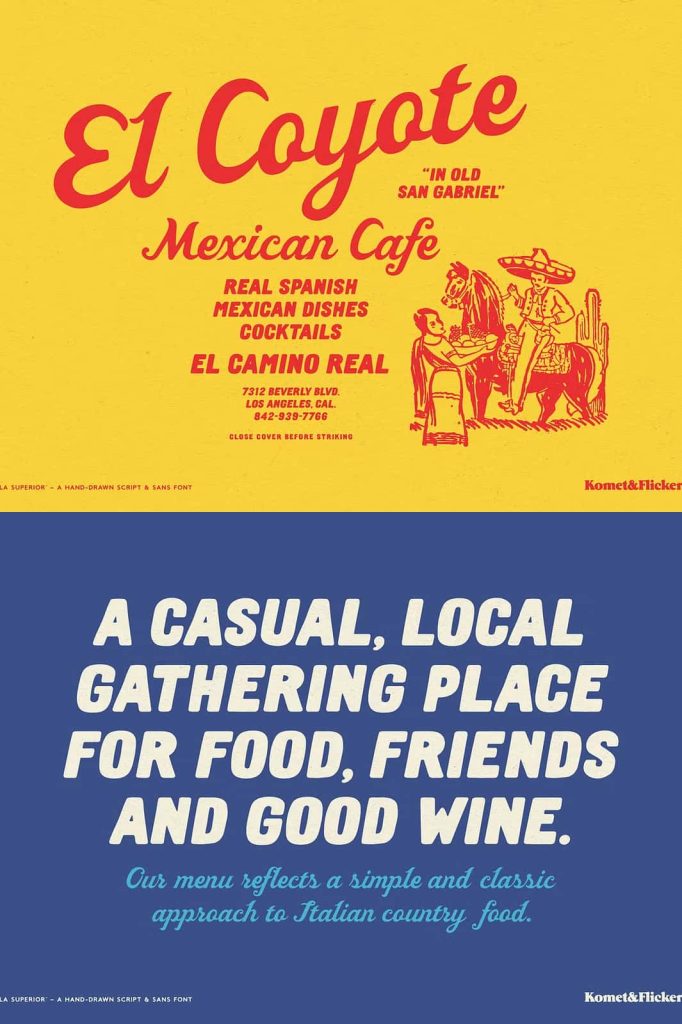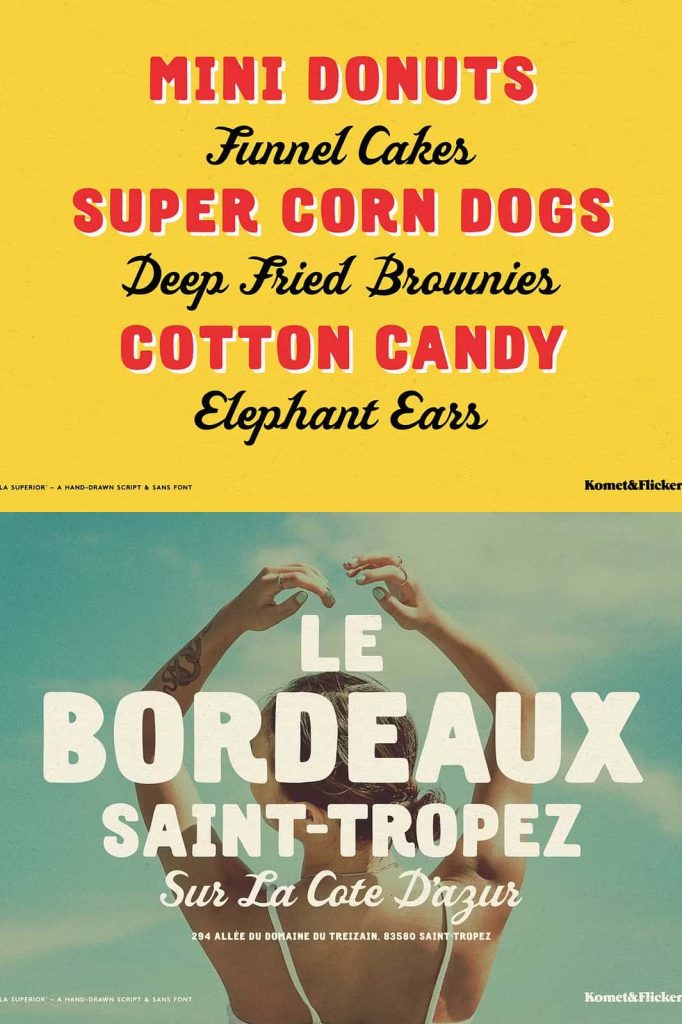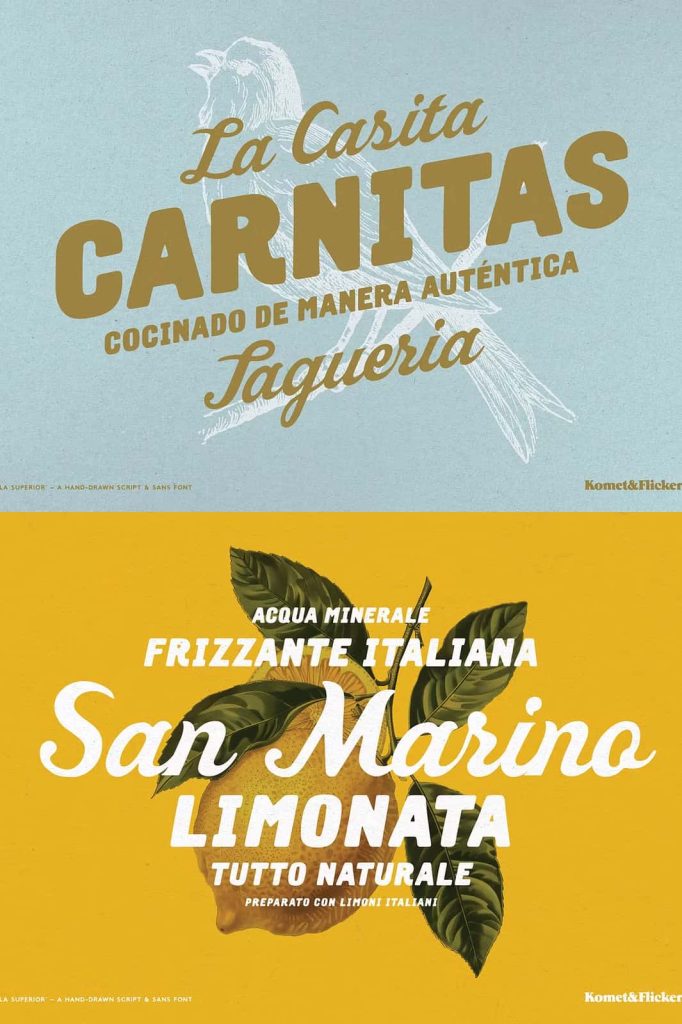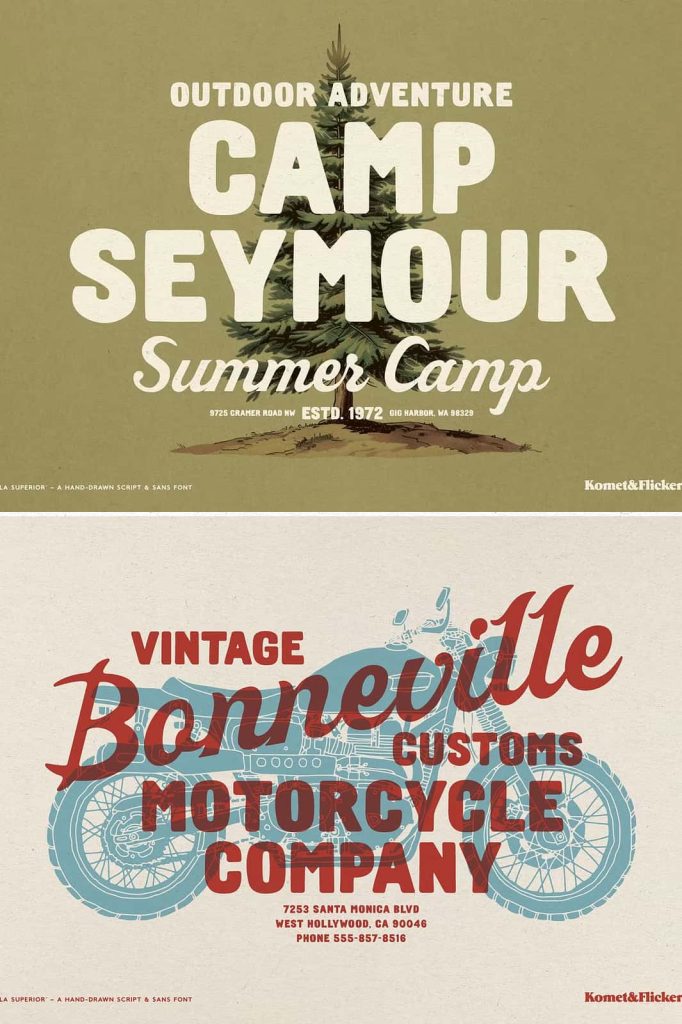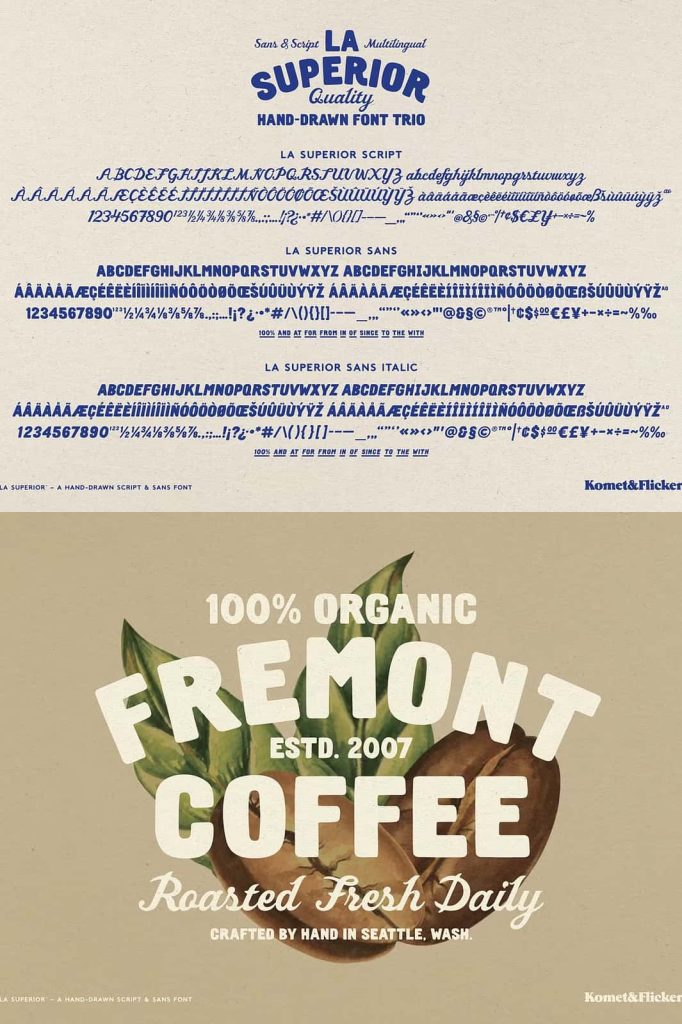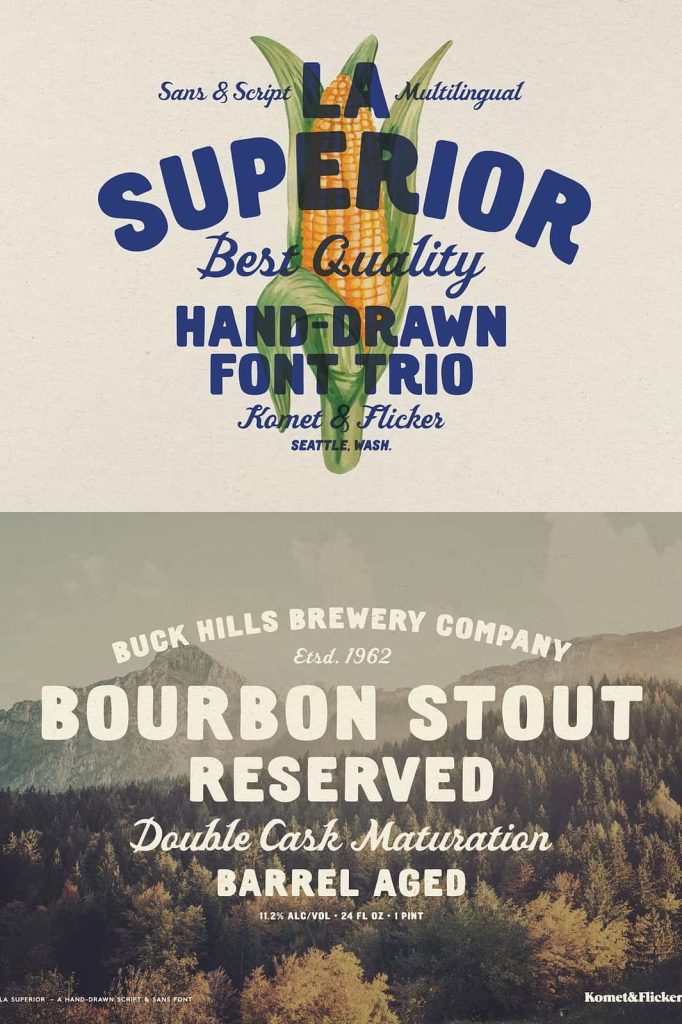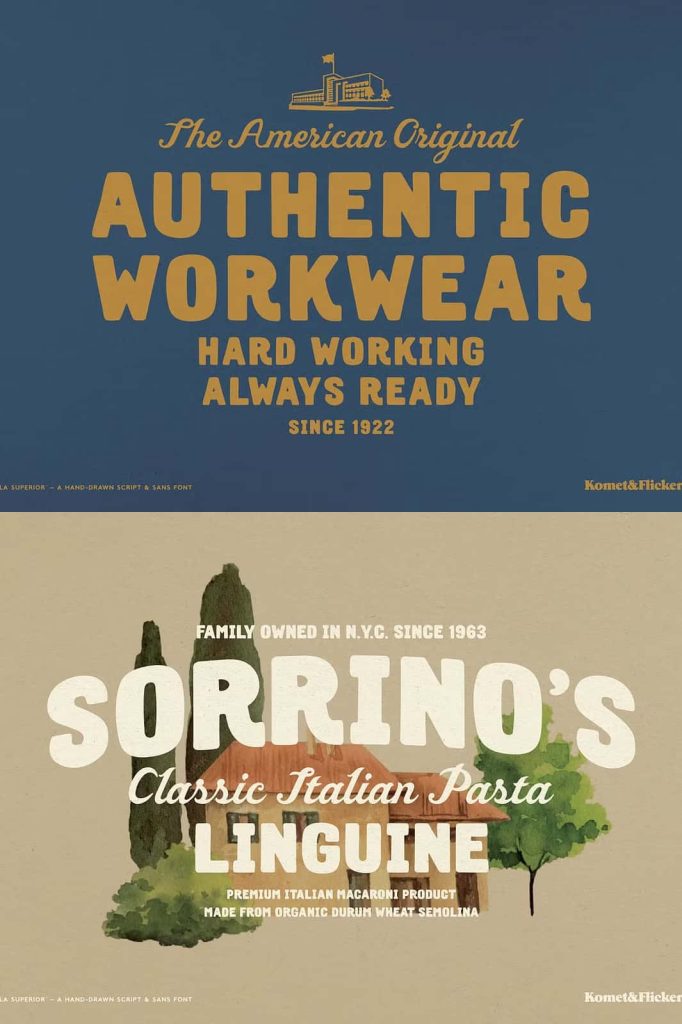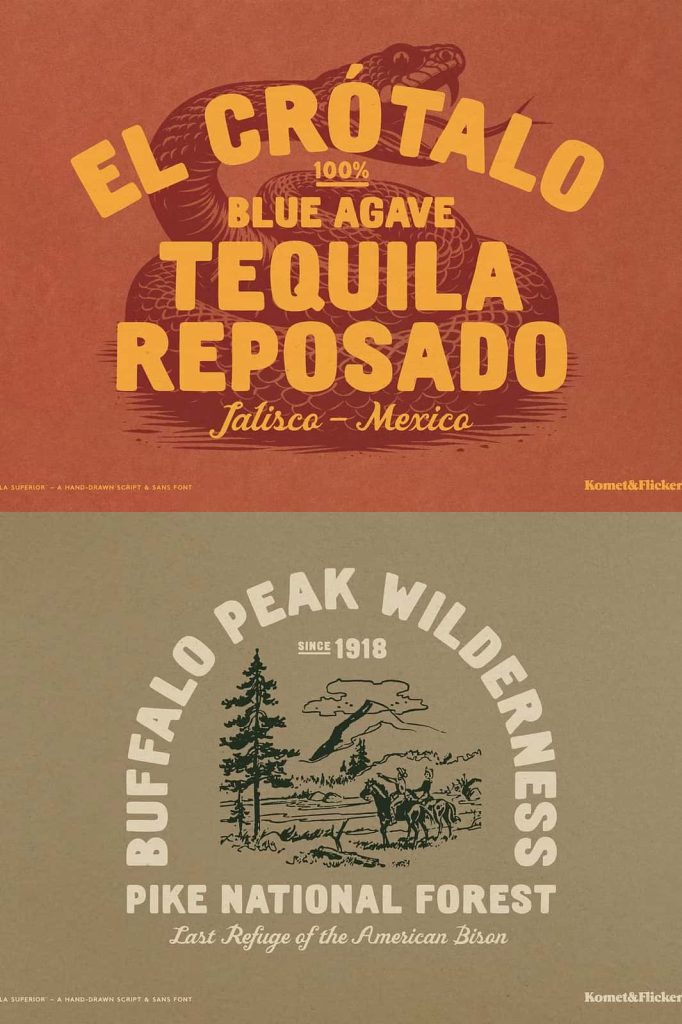
La Superior Hand Drawn Font Trio
La Superior is a handcrafted font trio inspired by the vibrant hand-painted lettering found on traditional Mexican taqueria walls and neighborhood storefronts. Rich in personality and cultural charm, this typeface captures the bold, imperfect beauty of authentic sign painter typography while delivering the versatility required for modern design projects. Every character reflects the natural movement of hand-painted brush strokes, creating typography that feels lively, welcoming, and full of character.
The family includes three complementary styles: an expressive script, a clean regular sans, and a stylish italic sans. Together, these fonts create a flexible design system that allows you to build cohesive branding, eye-catching headlines, attractive packaging, and memorable marketing materials with ease. Whether used individually or combined, each style contributes its own unique personality while maintaining visual harmony throughout your project.
Inspired by Authentic Mexican Sign Painting
La Superior pays tribute to the colorful tradition of hand-painted signage commonly seen throughout Mexican taquerias, markets, cafés, and local businesses. Rather than pursuing perfect geometric precision, the font embraces natural imperfections that make handmade lettering so appealing. Slight variations in line weight, spacing, and curves give every word an organic appearance that feels genuine and full of life.
This handcrafted aesthetic allows designers to recreate the warmth and authenticity of traditional street lettering while maintaining professional quality for both digital and print applications.
A Complete Font Trio for Endless Creativity
One of La Superior’s greatest strengths is its thoughtfully designed collection of three coordinated type styles. Each font serves a different purpose while working seamlessly with the others.
Expressive Script
The script style delivers flowing, energetic lettering inspired by classic brush-painted signs. Its smooth connections and expressive curves make it ideal for logos, featured headlines, product names, and creative branding that needs personality and movement.
Regular Sans
The regular sans provides clean and highly readable letterforms that balance the decorative nature of the script. It works perfectly for supporting text, menus, packaging information, promotional materials, and website content while maintaining the handcrafted character of the overall family.
Italic Sans
The italic sans introduces motion and emphasis without losing readability. Its subtle slant complements both the script and regular styles, making it ideal for quotes, highlights, secondary headlines, and stylish accents throughout your designs.
Handcrafted Character with Everyday Usability
Although La Superior celebrates the expressive imperfections of hand-painted lettering, it remains practical for everyday design work. Each character has been carefully refined to provide excellent readability while preserving its authentic handcrafted appearance. The result is a font family that feels artistic without becoming difficult to use.
Whether designing large display headlines or smaller supporting text, La Superior delivers clarity, consistency, and visual appeal across multiple applications.
Perfect for Branding and Creative Design
The versatility of La Superior makes it an excellent choice for a wide range of creative industries. Designers can easily mix the three font styles to establish hierarchy, improve readability, and create visually engaging layouts that maintain a cohesive handcrafted aesthetic.
Ideal Applications
- Restaurant branding and taqueria menus.
- Food truck logos and promotional materials.
- Mexican-inspired product packaging.
- Café and coffee shop branding.
- Vintage-style logos and visual identities.
- Posters, flyers, and event promotions.
- Social media graphics and digital campaigns.
- Website headers and landing pages.
- Merchandise, apparel, and custom prints.
- Artisan food labels and handcrafted products.
- Editorial headlines and magazine covers.
- Greeting cards and creative stationery.
The handcrafted appearance immediately creates a friendly and approachable atmosphere, helping brands connect with audiences through authentic visual storytelling.
Create Dynamic Typography with Three Complementary Styles
La Superior gives designers the flexibility to combine script and sans-serif typography without searching for separate font families. The expressive script naturally draws attention, while the regular and italic sans styles provide structure and readability. This balanced approach allows you to create sophisticated layouts that feel energetic without becoming visually overwhelming.
By pairing these styles strategically, you can develop logos, advertisements, menus, packaging, and editorial designs that communicate confidence, creativity, and authenticity.
If you are looking for a typeface that celebrates handcrafted artistry while offering outstanding versatility, La Superior is an exceptional choice. From restaurant branding and vintage-inspired packaging to editorial design and promotional graphics, this hand-drawn font trio helps every project communicate warmth, creativity, and timeless visual character.